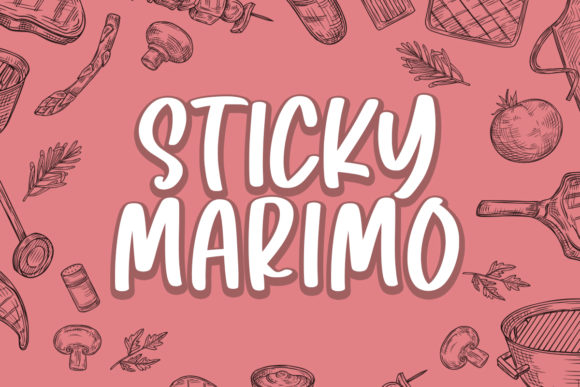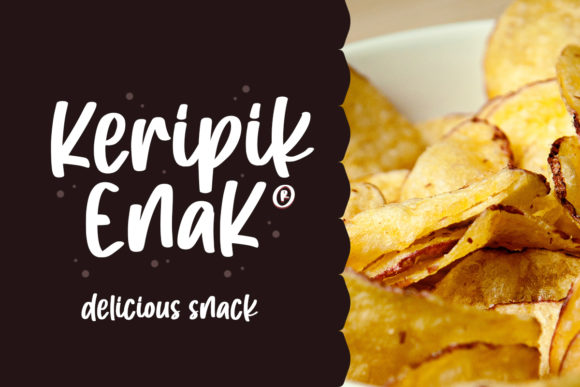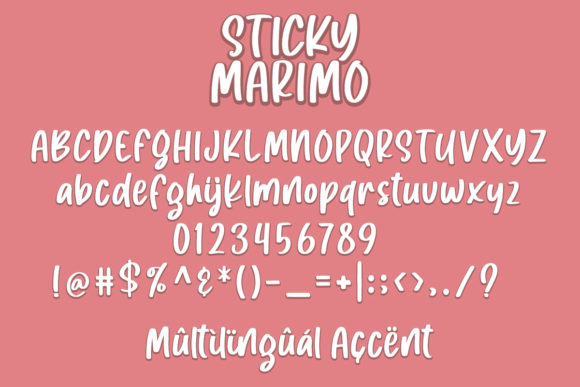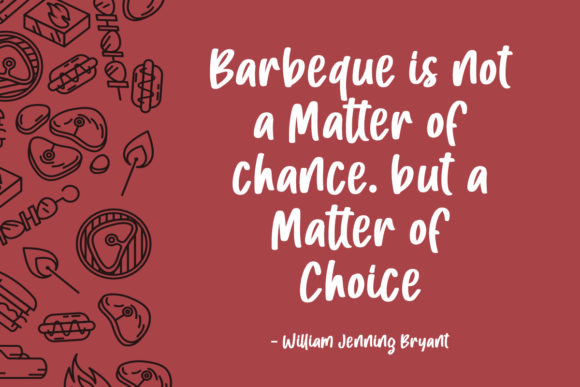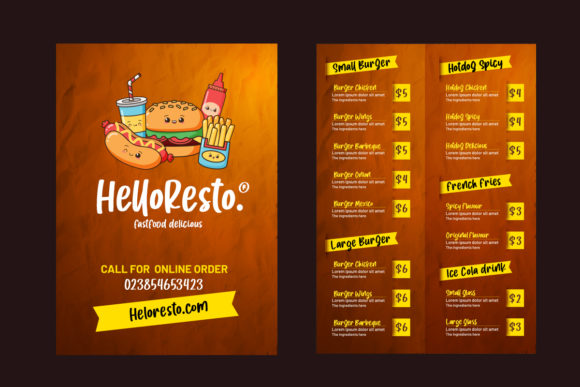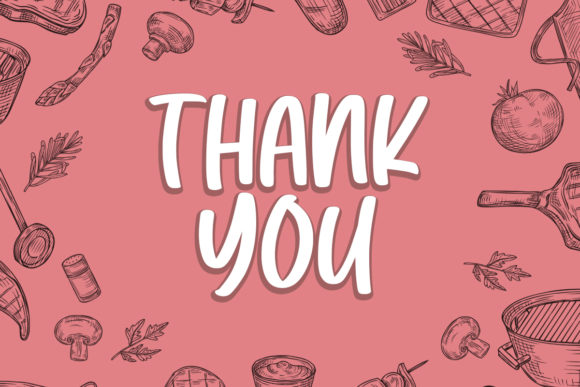
Sticky Marimo Font
About Sticky Marimo Font
Sticky Marimo is a cute and casual handwritten font with an incredibly friendly feel. Whether you’re looking for fonts for Instagram or calligraphy scripts for DIY projects, Sticky Marimo will turn any creative idea into a true piece of art!